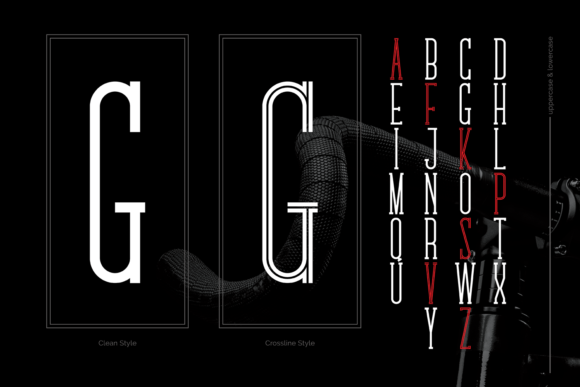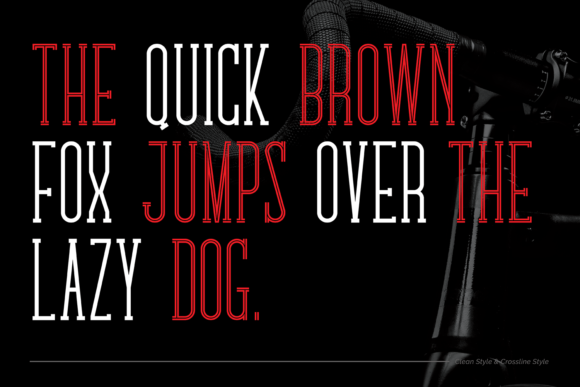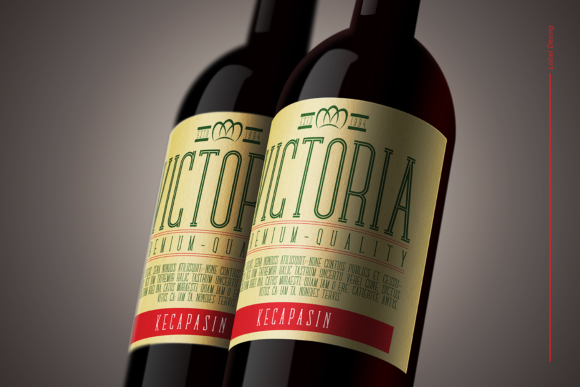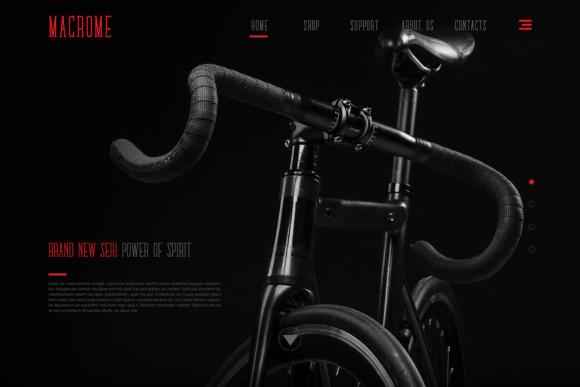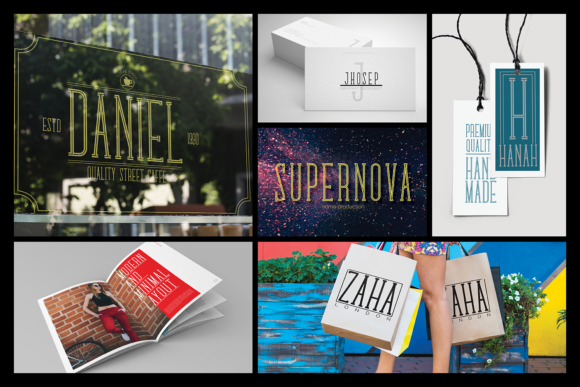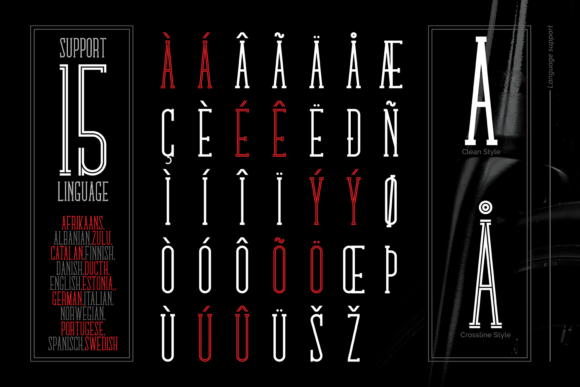
Introduction to Chokie Font
The Chokie is a serif font with a simple and classy style.
It’s perfect for headlines, editorial designs, print posters, signages, window shop designs, and much more It comes in two styles which can be mixed and matched together to create something very fresh and modern.
Chokie Font offers exceptional quality and versatility, making it a valuable addition to your design toolkit. Whether you’re creating for personal projects or commercial use, Chokie Font delivers professional results.